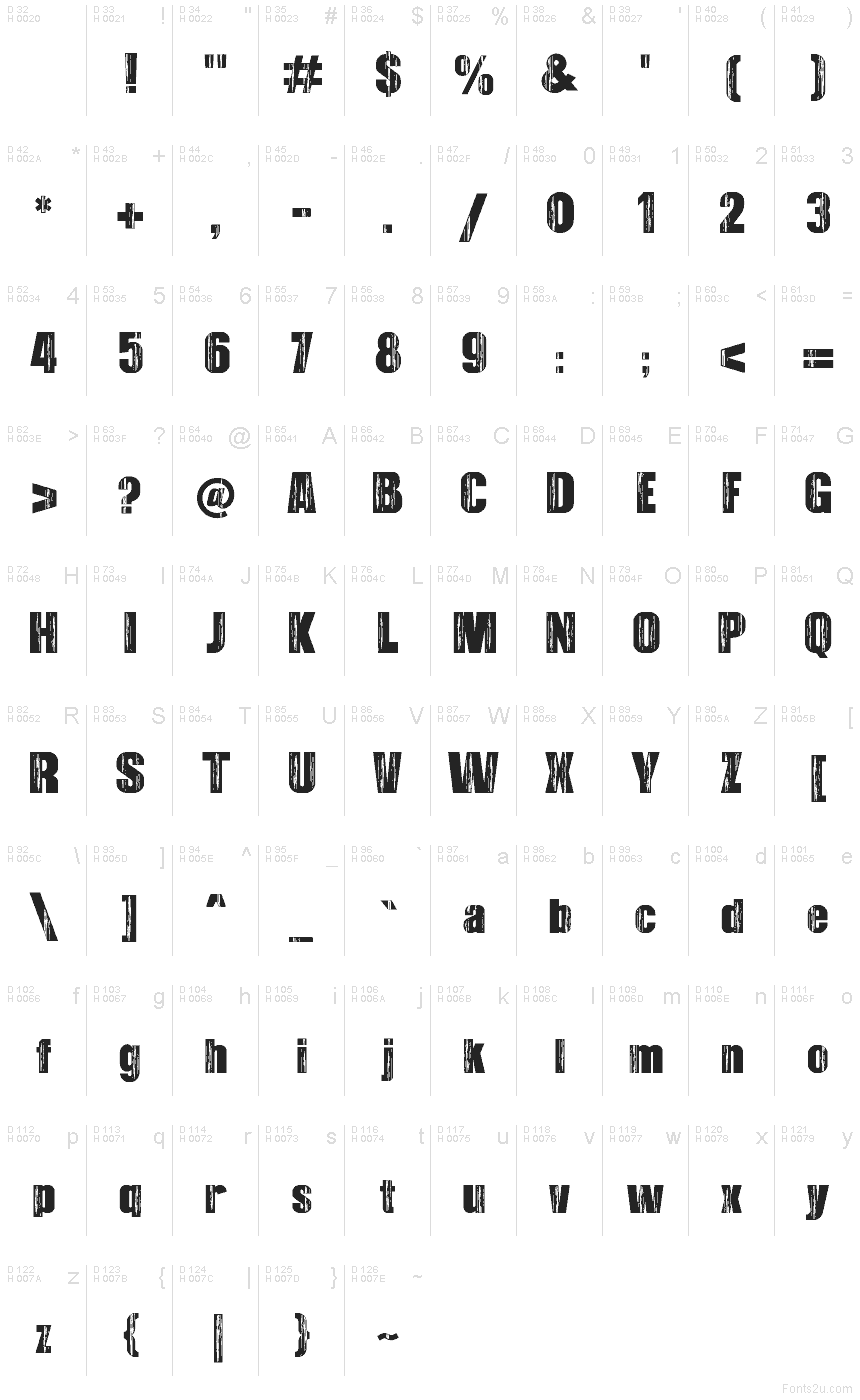
Very Damaged Regular
Very Damaged font is a bold, rustic typeface by Galdino Otten Fonts that brings a distressed texture to your projects. This display font’s grunge elements and eroded letters provide it with an authentic vintage appeal for designs that call for a rugged appearance and nostalgic feel.